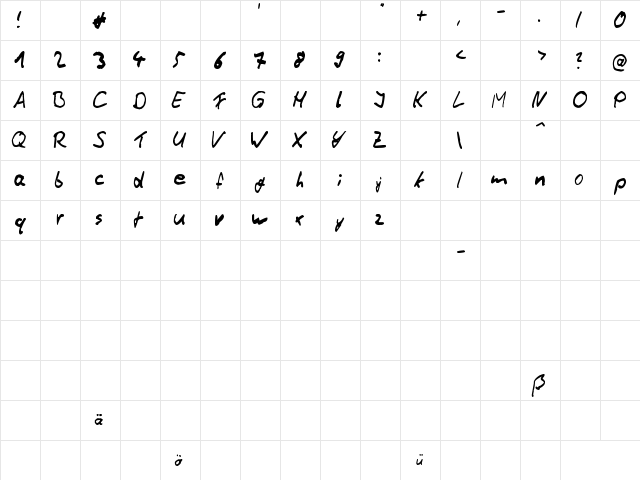
Thommy Handwrite Regular Font Preview
Thommy Handwrite Regular
Thommy Handwrite Regular Font Details
Design Context for Thommy Handwrite Typeface
Thommy Handwrite flows with the natural rhythm of handwritten lettering, making it ideal for designs that call for warmth and personal expression.
Font Pairing: Combine Thommy Handwrite with a simple geometric sans for maximum contrast — the tension between flowing curves and clean structure is a classic typographic pairing.
Pro Tip: Use Thommy Handwrite for short runs of text — names, titles, or taglines. Extended body copy in script faces tires the eye quickly.